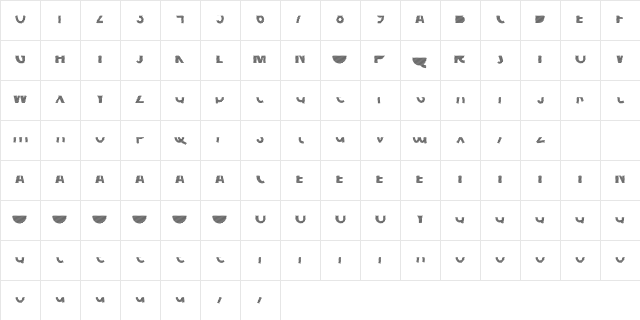
Strip Line StripDown Free Font
Strip Line StripDown
Style: StripDown
Foundry: Hans Co
Designer: Burhan Afif
Year: 2019
Strip Line Family
Strip Line StripDown
Design Context for Strip Line
Strip Line is a composed and adaptable typeface that performs quietly and consistently across a wide range of design contexts.